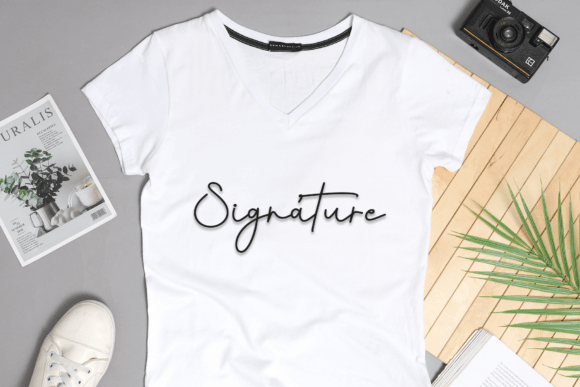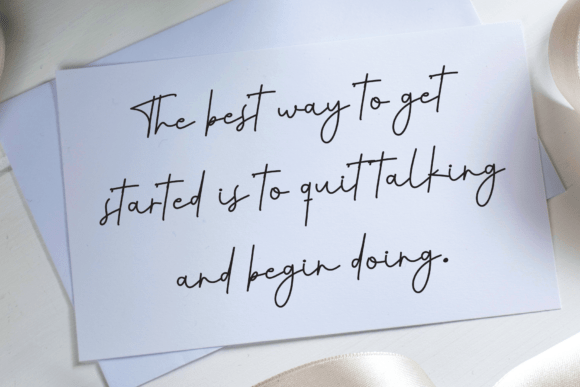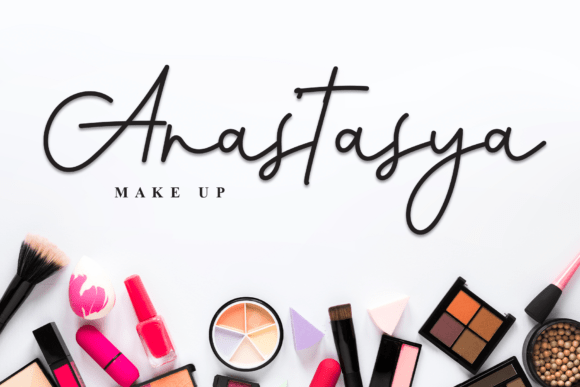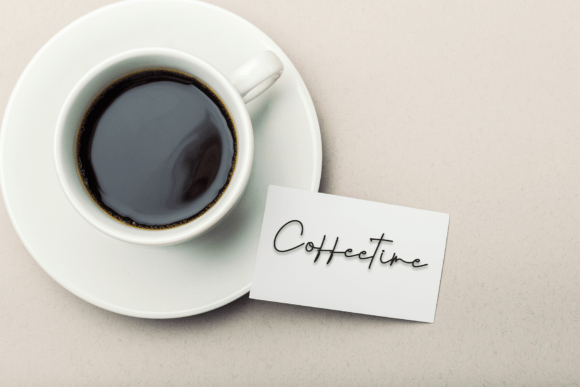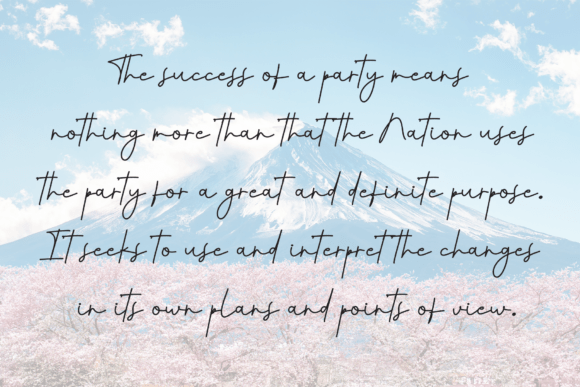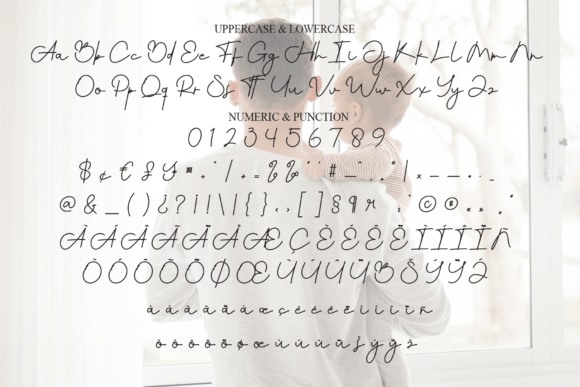
The Perfectly Imperfect Charm of Father Font
I’ll never forget the design project that led me to discover Father Font. I was working on a journaling project for a client who wanted a font that captured the essence of handwritten notes. I had spent hours scouring the internet for the perfect font, but nothing seemed quite right. That was until I stumbled upon Father Font. Its raw, expressive energy and casual charm immediately drew me in, and I knew I had found the perfect fit.
- ✨ The unique, slightly untamed strokes that give it a wonderfully real feel
- ✅ The perfect balance of personality and legibility
- 💫 The way it brings a touch of spontaneity to any design project
- 🎉 The font’s versatility – it works beautifully for journaling, note-style graphics, and creative branding
While Father Font is an amazing font, it’s not without its quirks. For example:
- 🤔 Some users may find the font’s imperfections a bit too pronounced for certain projects
- ⚠️ It may not be the best choice for very formal or corporate designs
- Experiment with OpenType features like glyphs and stylistic alternates to add more personality to your text
The Story Behind Father Font
While the true story behind Father Font remains a mystery, it’s easy to imagine that it was created by a designer who wanted to capture the beauty of imperfect handwriting. Perhaps they were inspired by the messy, heartfelt notes they received from loved ones, or the quirky, hand-painted signs they saw in their neighborhood. Whatever the inspiration, Father Font is a testament to the power of imperfection in design.
Q: What makes Father Font so special?
A: Father Font’s unique blend of raw energy and casual charm makes it perfect for designs that need a touch of personality and spontaneity.
Q: Is Father Font difficult to read?
A: While Father Font has a unique character, it’s still surprisingly legible. However, it may not be the best choice for very small text or body copy.
Q: Can I use Father Font with other fonts?
A: Absolutely! Father Font pairs beautifully with a range of fonts, from clean sans-serifs to elegant scripts. Experiment with different combinations to find the perfect match for your project.